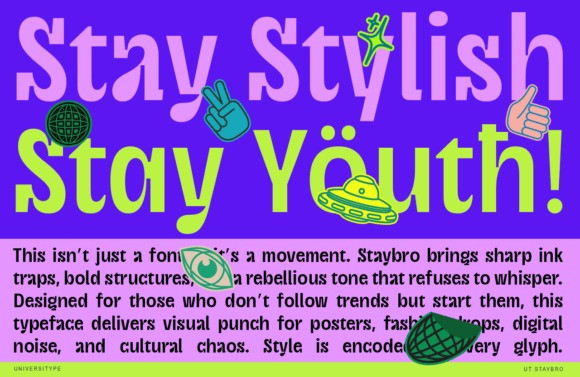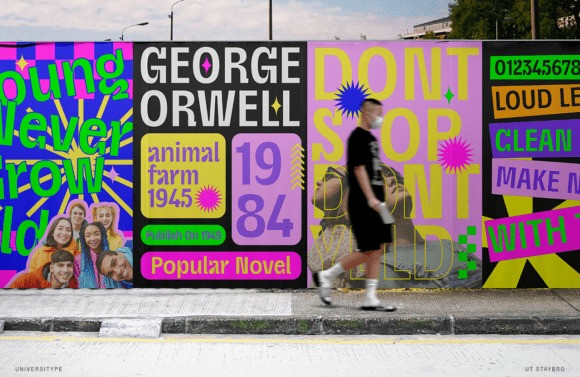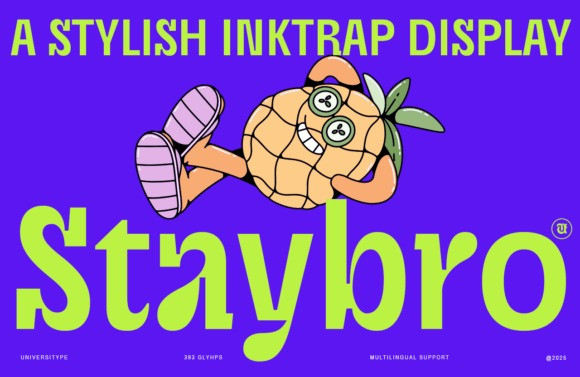
Ut Staybro Font
UT Staybro Font is a bold, attention-grabbing sans-serif font with geometric precision and friendly rounded details. It’s designed for fearless creators, blending strength and warmth—perfect for street art, digital media, fashion, music, and entertainment.
With thick strokes, soft edges, dynamic terminals, and a high x-height, UT Staybro ensures great readability while adding personality to every letter. It supports multiple languages, includes numerals, punctuation, symbols, and alternate glyphs for creative flexibility.
Inspired by youth culture—graffiti, concert posters, and social media boldness—UT Staybro is ideal for posters, flyers, logos, social media graphics, packaging, and editorial headlines. It’s made to make your message not just seen, but remembered.